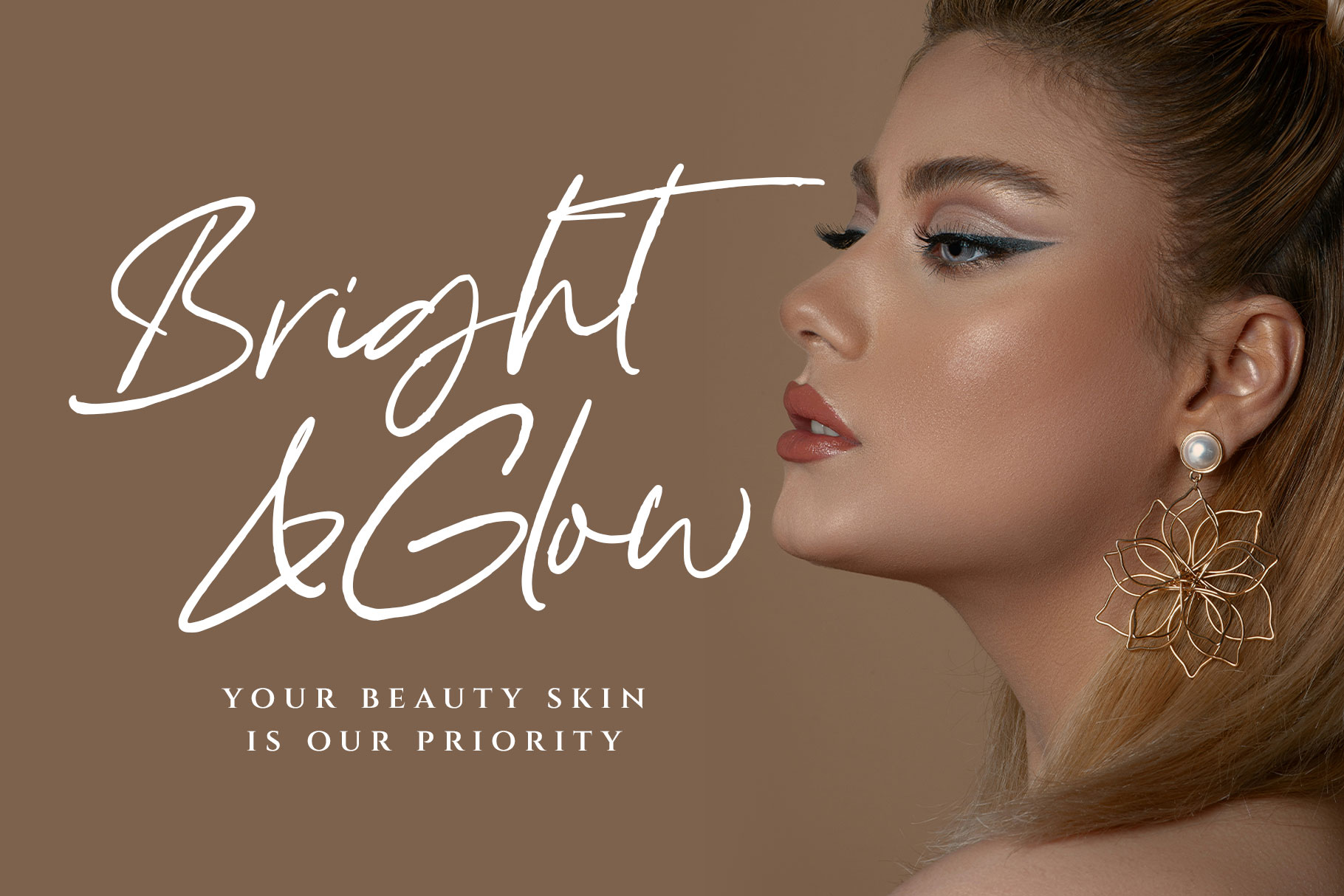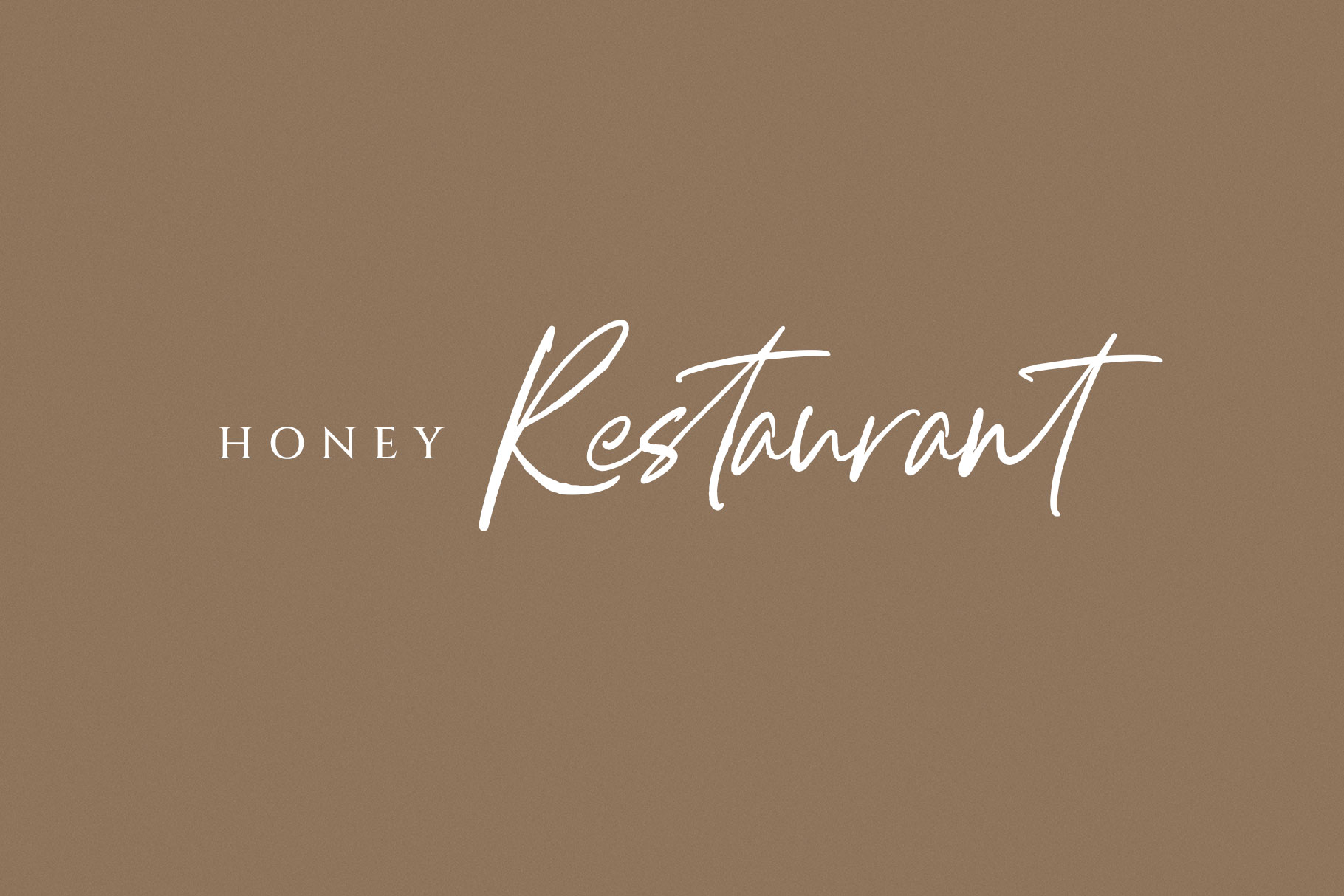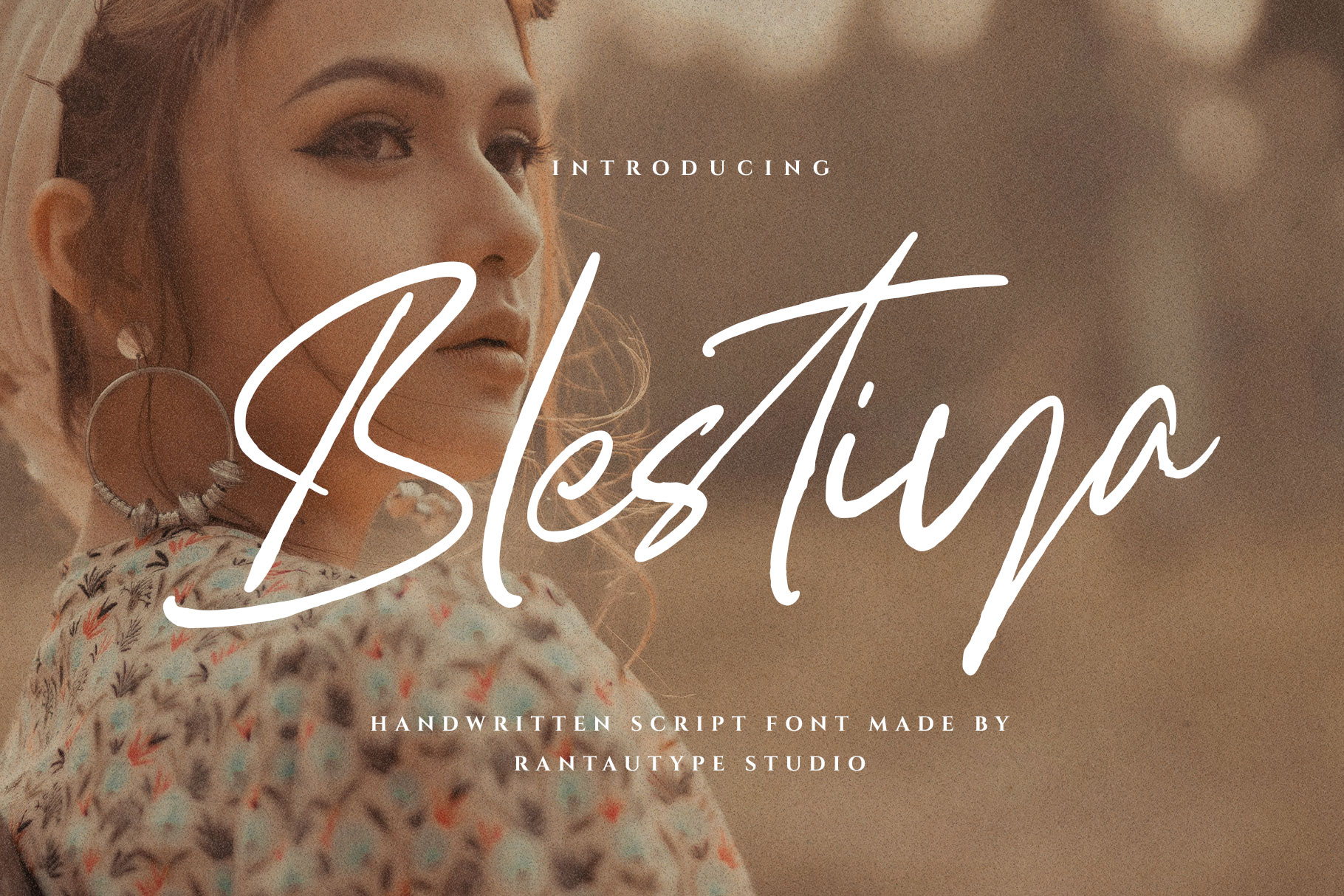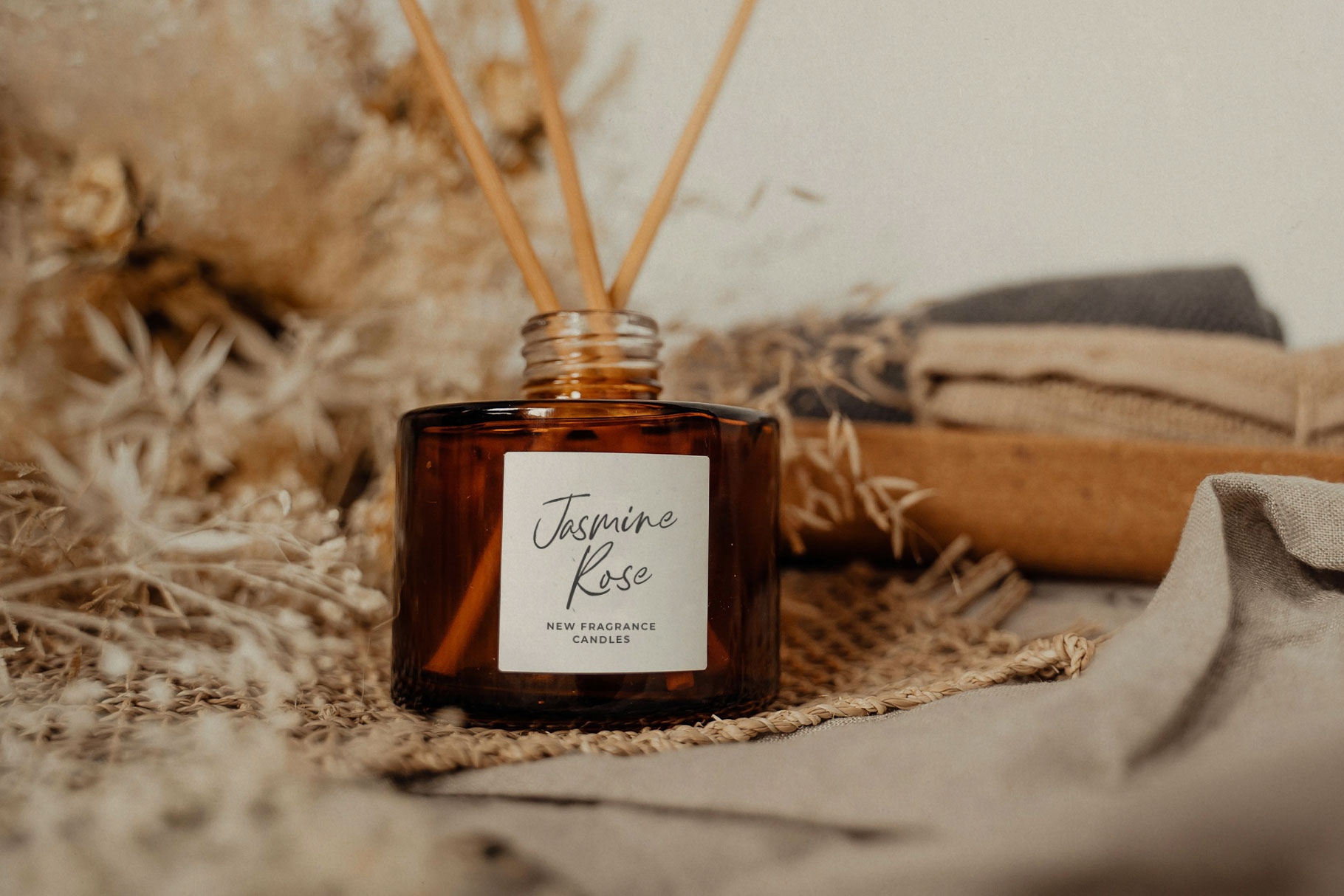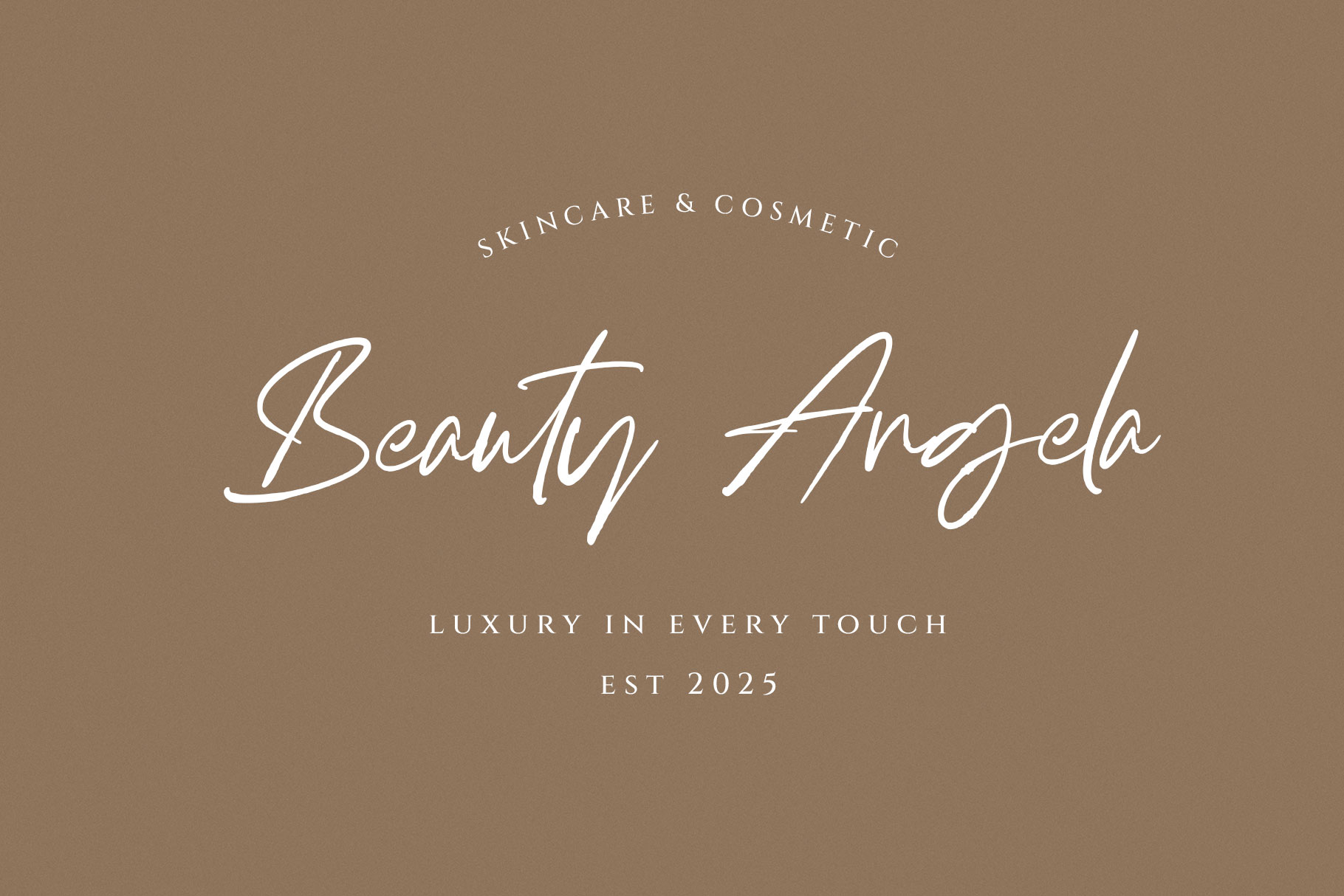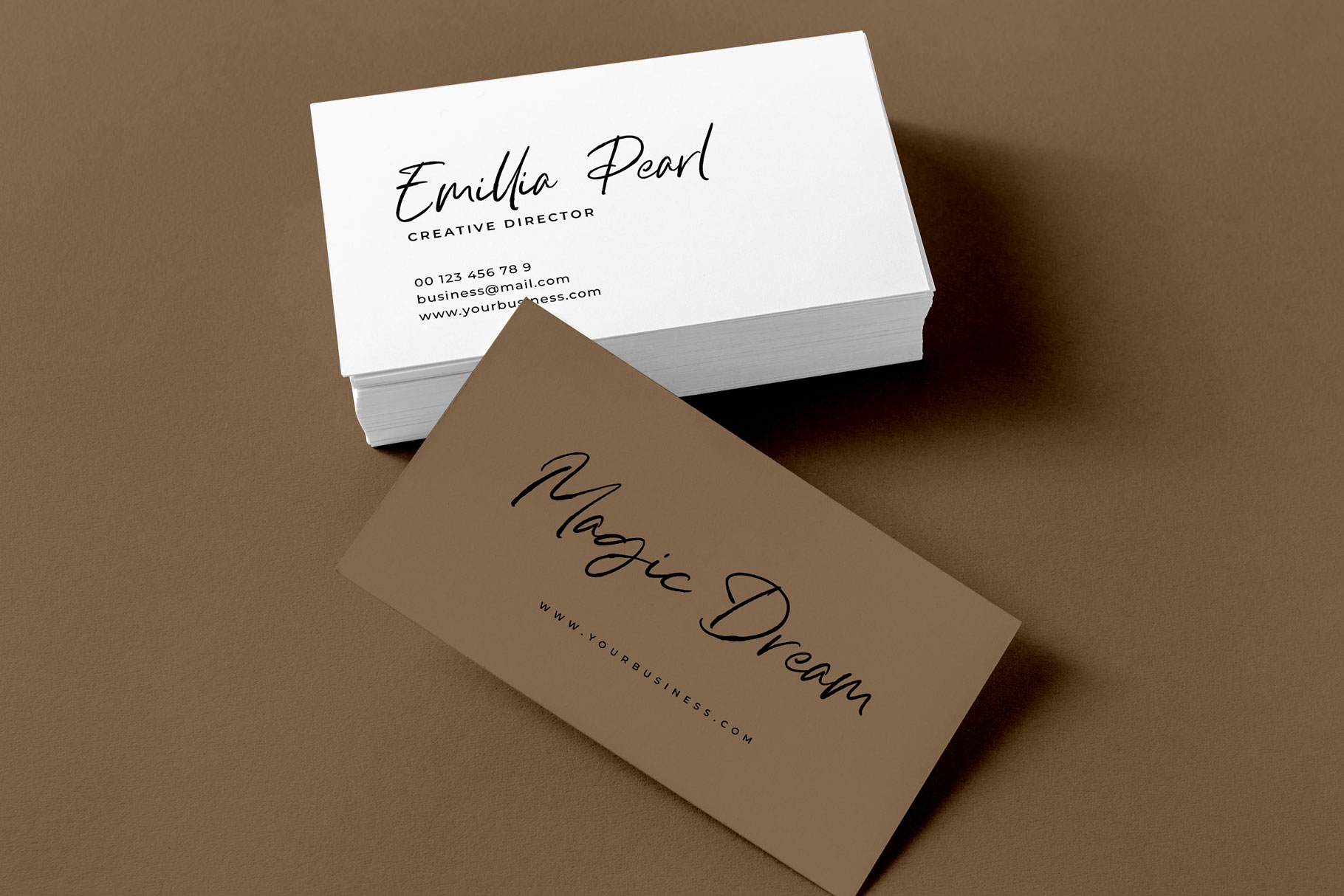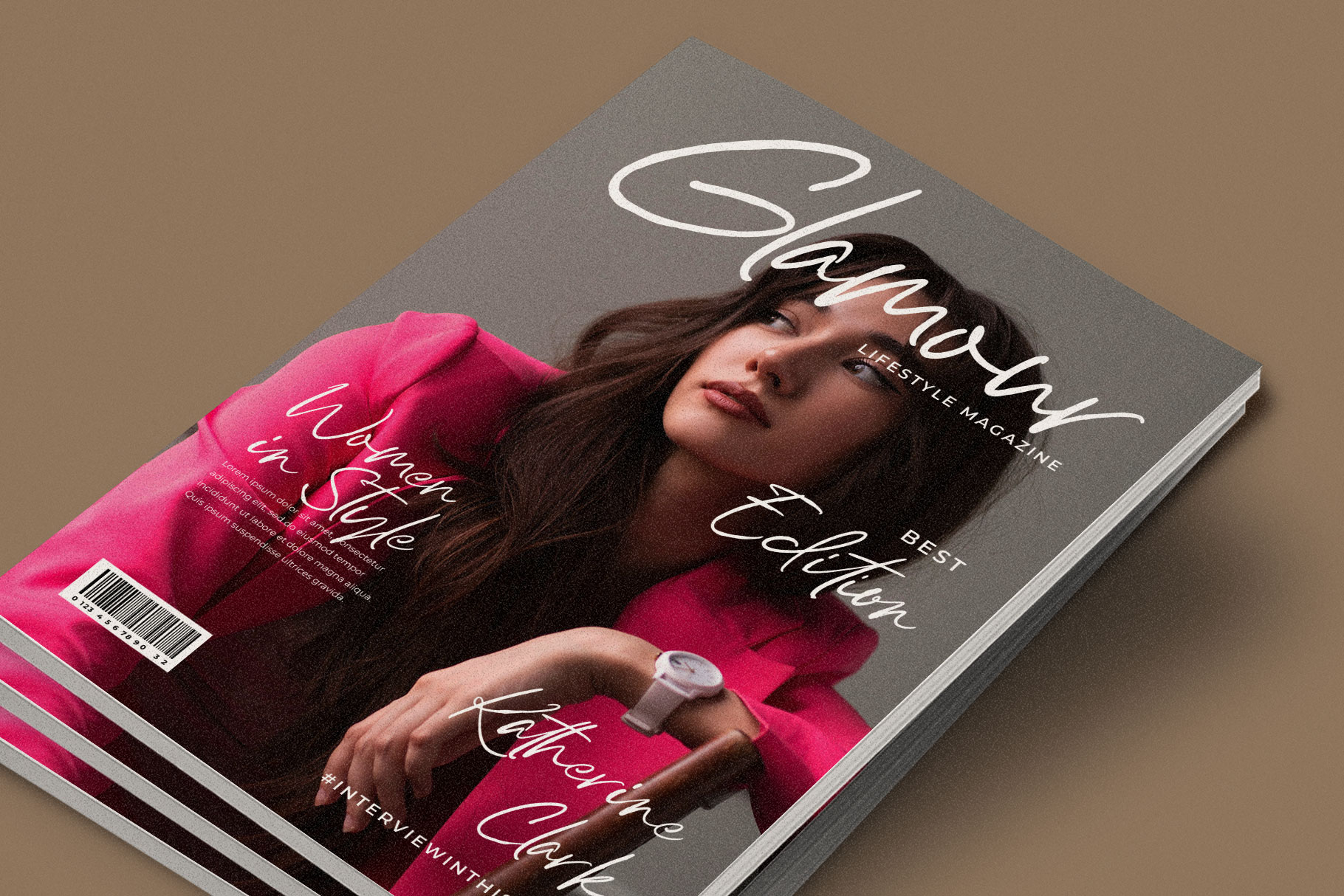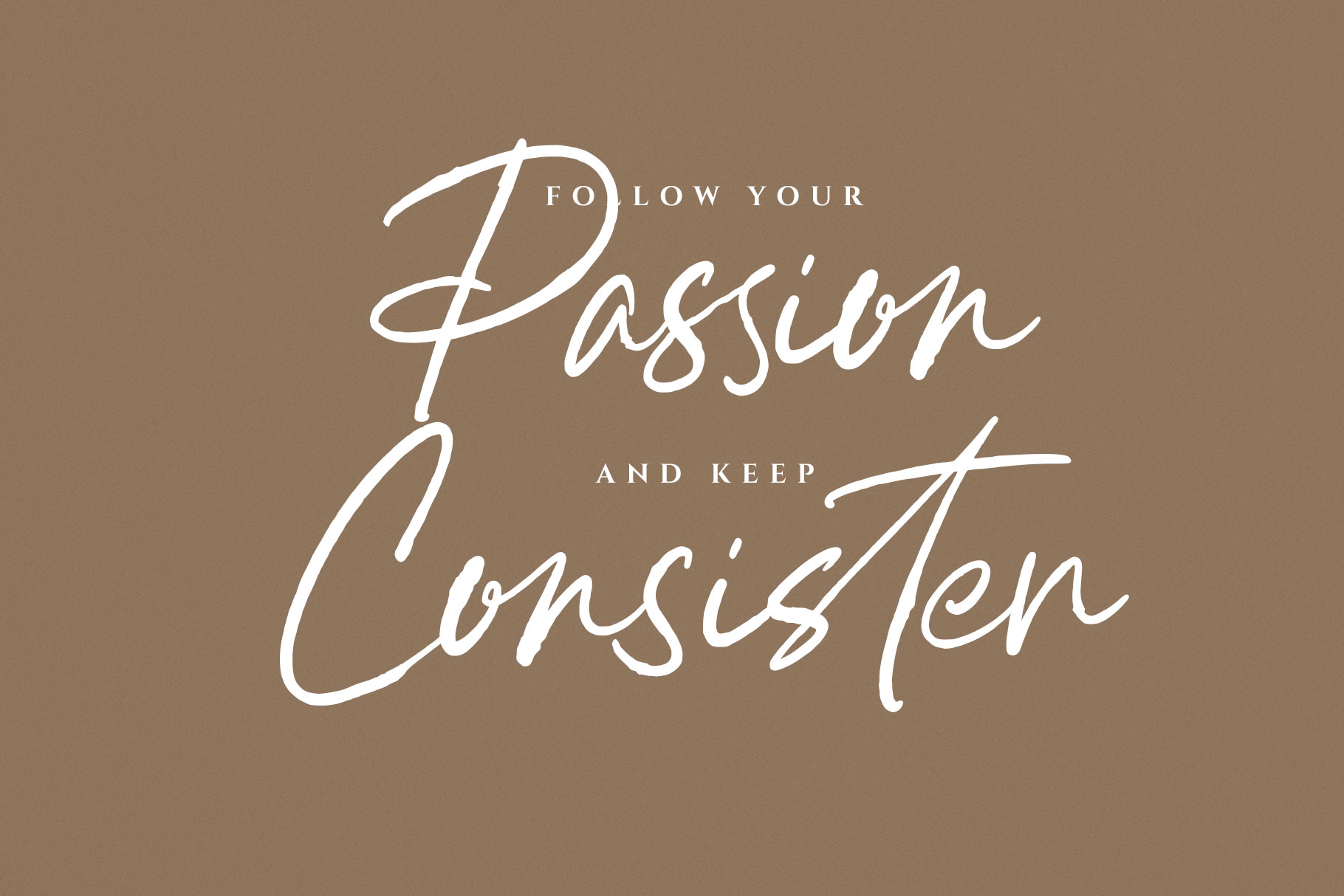
Blestiya Handwritten Script Font
Blestiya is handwritten script font with texture detail character. Blestiya is a perfectly choice for any creative endeavor, creating, modern, lifestyle design such as logotype, title, cover, branding, invitations, wedding designs, display and magazine, social media posts, advertisements, printed quotes, product packaging, corporate brand, product designs, labels, photography, watermarks, special events and any other project with modern touch.